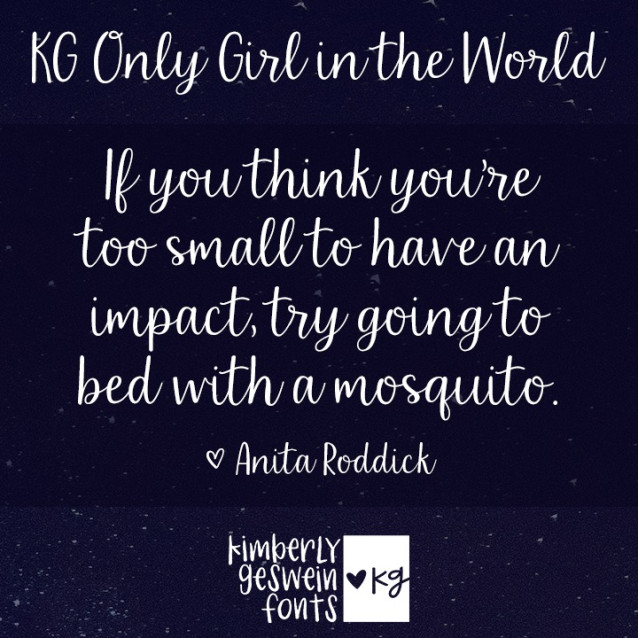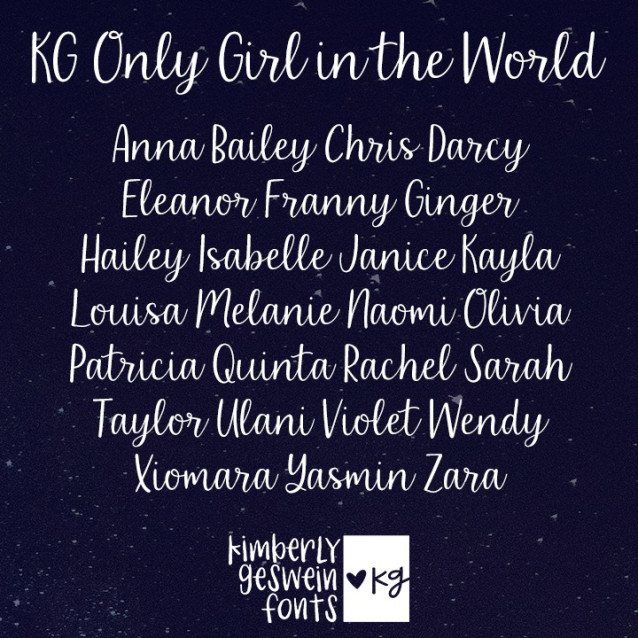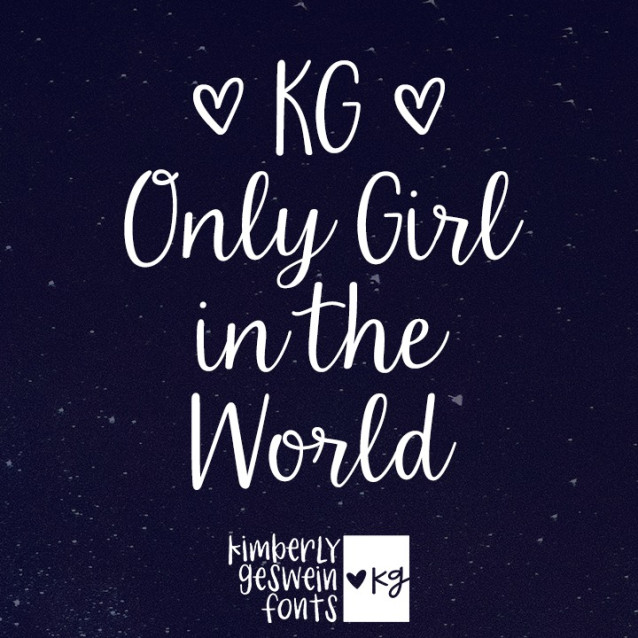
Kg Only Girl In The World Font
Kg Only Girl In The World Font is a feminine pretty script font with neat letter connections. Use this font anywhere you want to infuse your project with a soft girly touch.